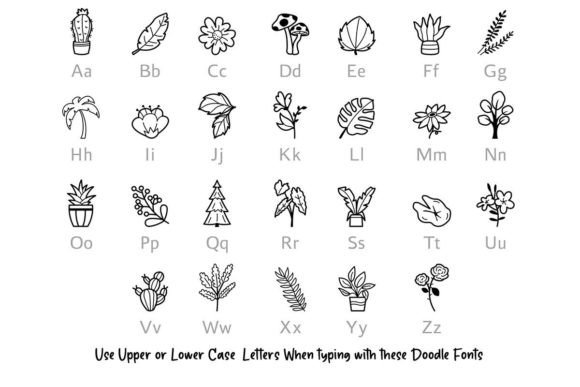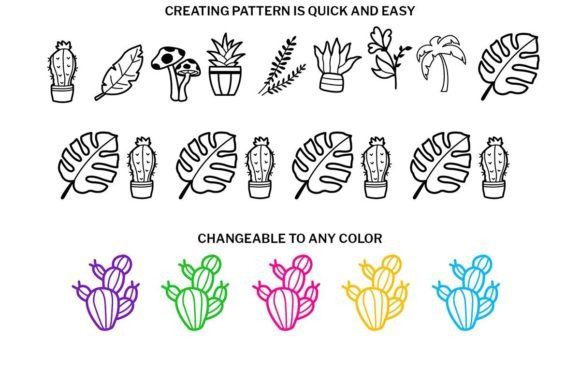
Plant Doodle Font
Plant Doodle is a fun and cute dingbat font. Its versatility makes it great for a wide pool of craft projects, designs, planners, diaries, activity books, or anything that your heart desires!